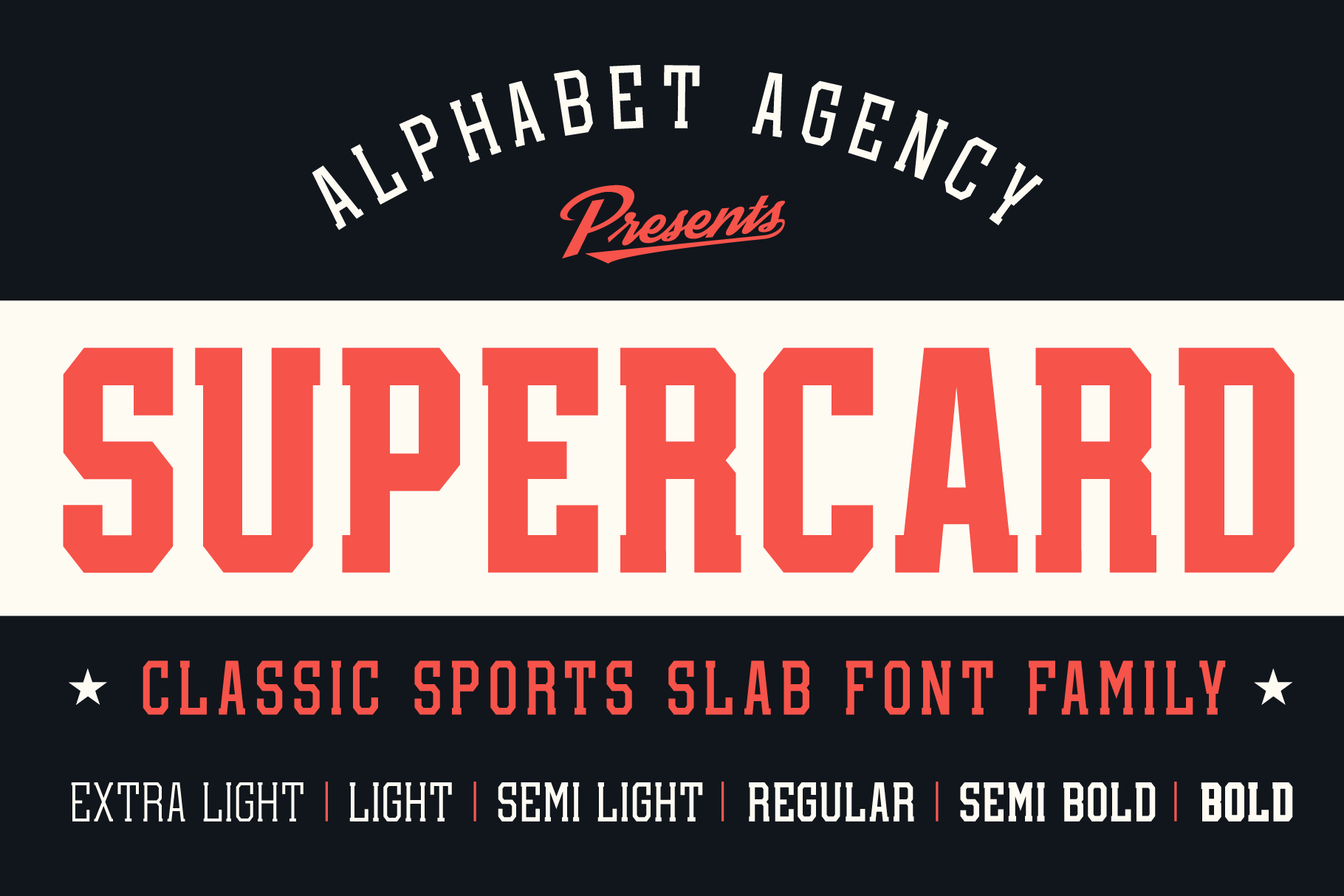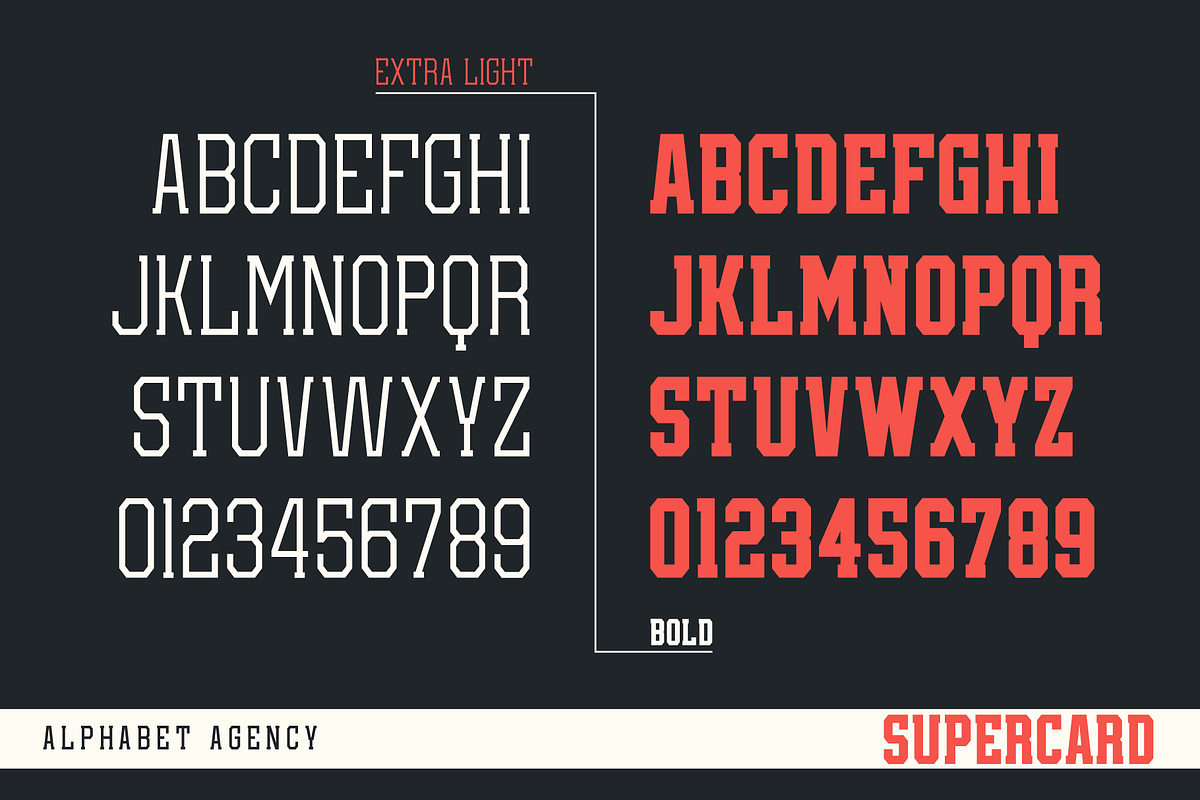
SUPERCARD FONT FAMILY
Supercard's creation is inspired by traditional athletic block lettering often only seem in uppercase form Supercard font family has captured the blue collar feel and expanded the range of this traditional look in six different weights all with uppercase, lowercase, numbers, punctuation and simple Latin international characters.
The versatility of the different font weights allows for broader and fresh design possibilities in your work.